I'm trying to make other applications (like putty and SecureCRT) use the same font as windows CMD.
What exactly is this "Raster Fonts" Font and how do I get it?
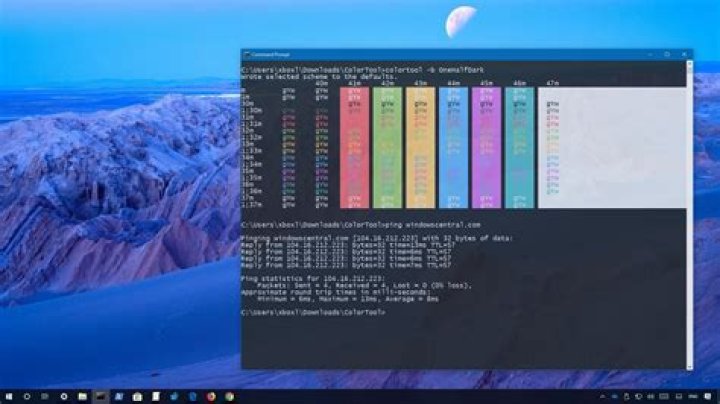
Raster fonts are the same as Bitmap fonts, and you can see the Wikipedia definition here.
As for what the font is, you can check the Selected Font in the dialog/screenshot above. Your selected font is terminal.
0There are more width by height sizes in the Raster Fonts tab than are in terminal. Every font in Notepad or WordPad has a specific aspect ratio: 1:2* or 1:1. As far as I know, there is no definitive way to get all of the Raster Fonts out of System32 or even cmd by extracting the fonts RIGHT OUT of cmd using 7-Zip. Yes, 7-Zip can extract out of .exe extensions.
*width:height